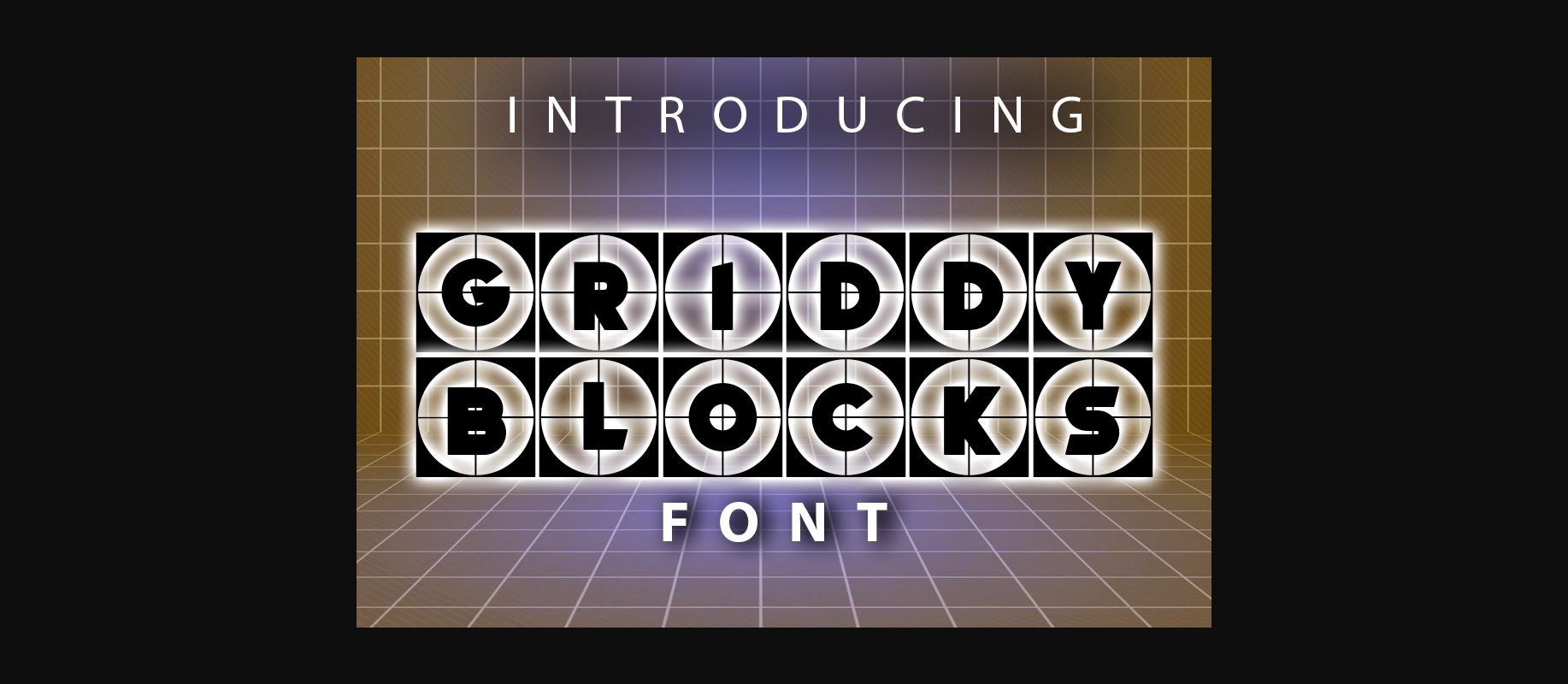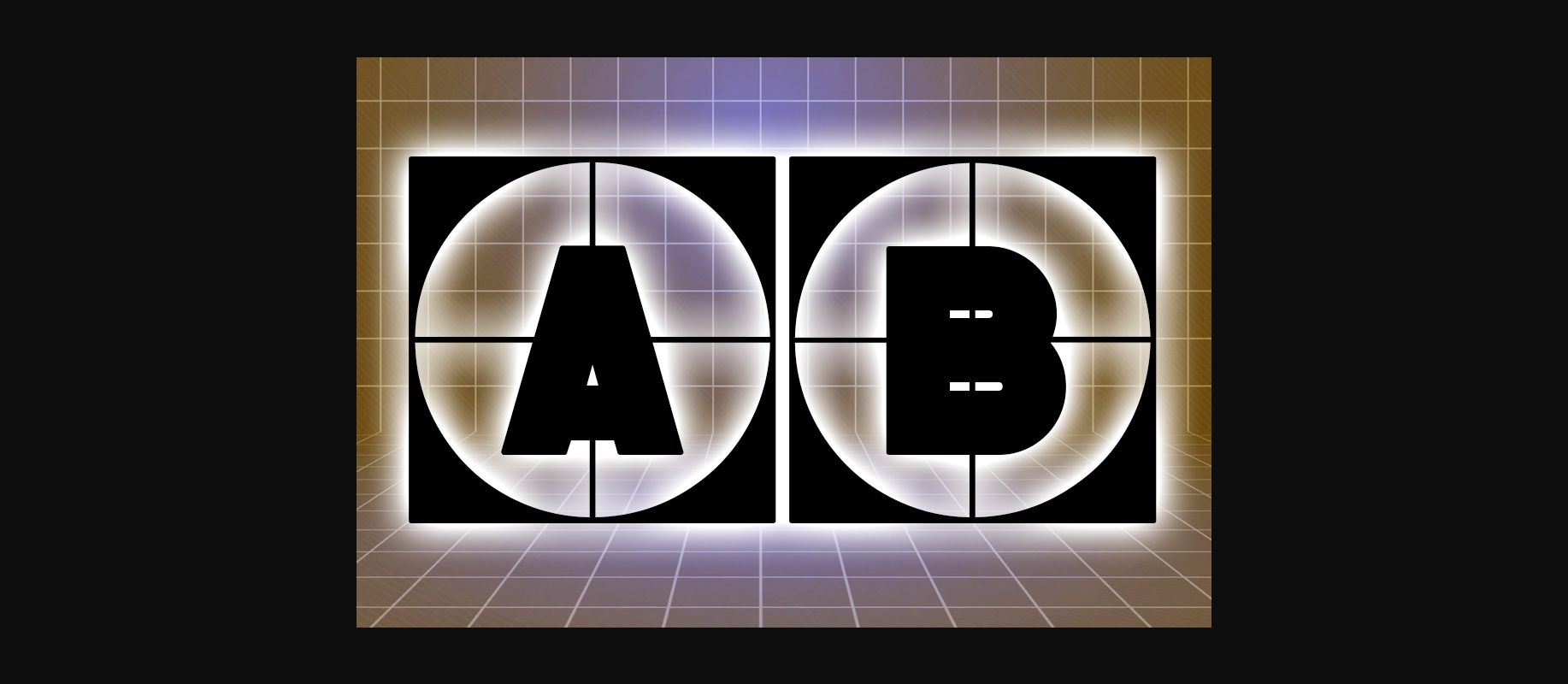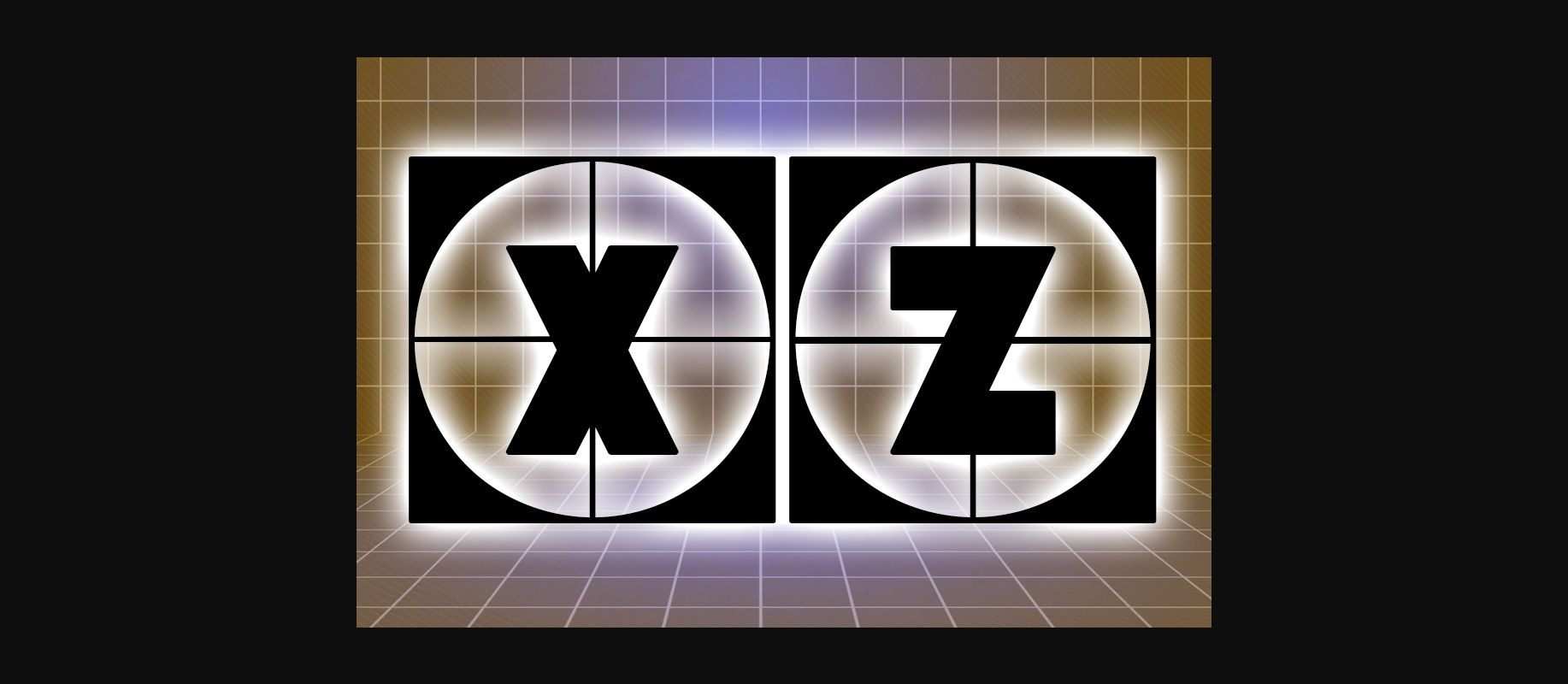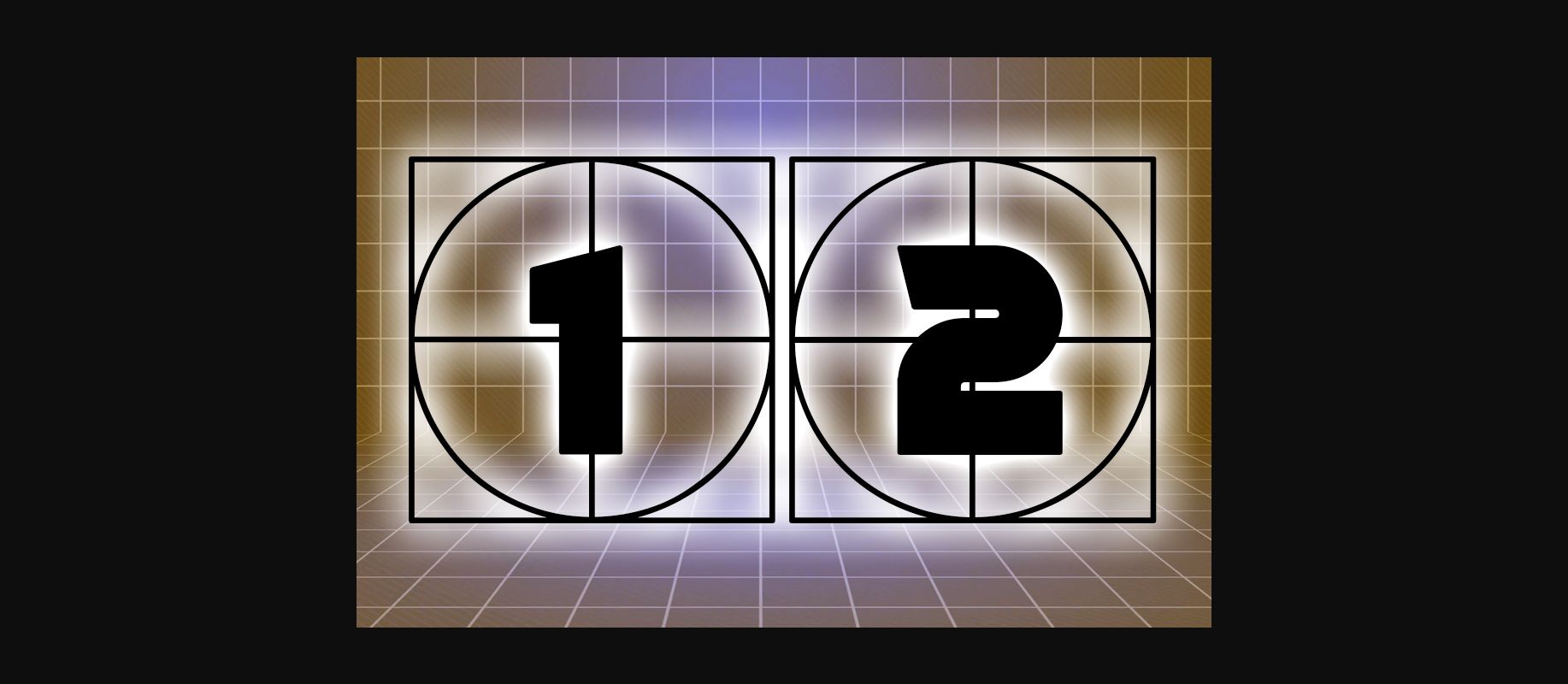
Griddy Blocks Font
About Griddy Blocks Font
Griddy Blocks is an awesome font done in a grid decorative style. It looks great on any print, t-shirt, or banner.